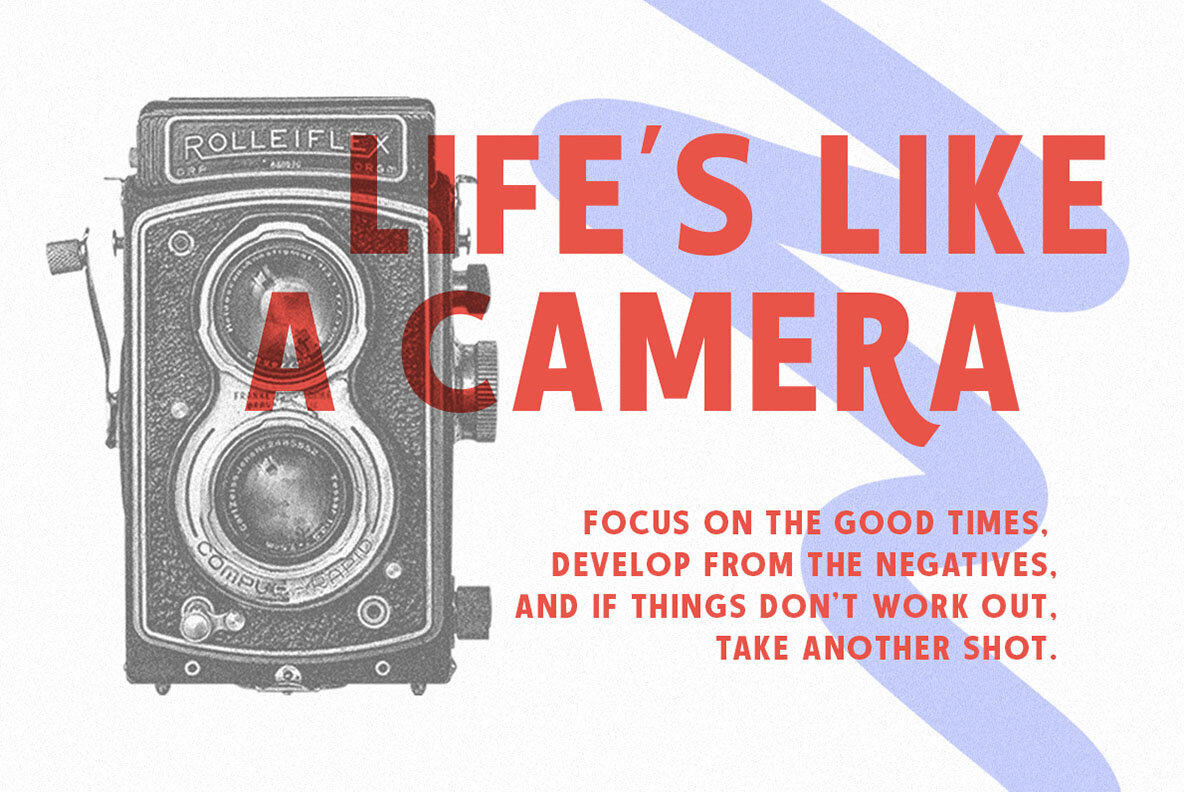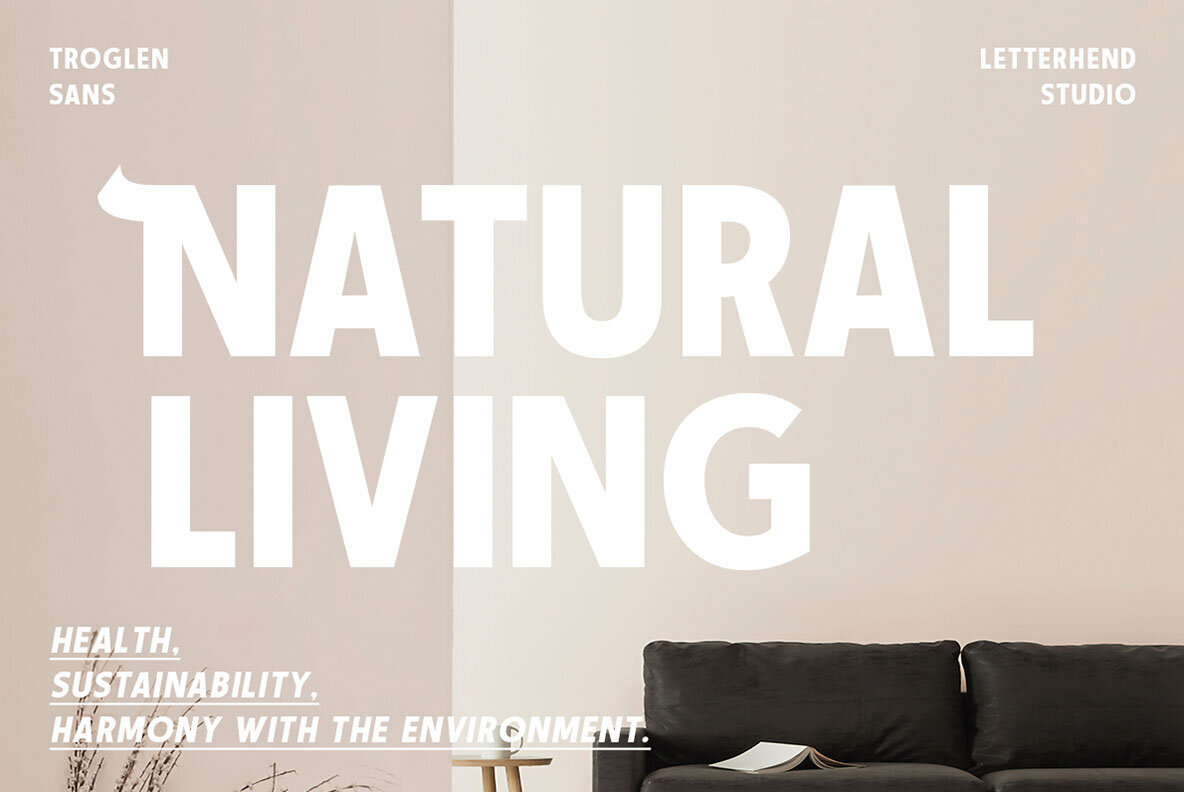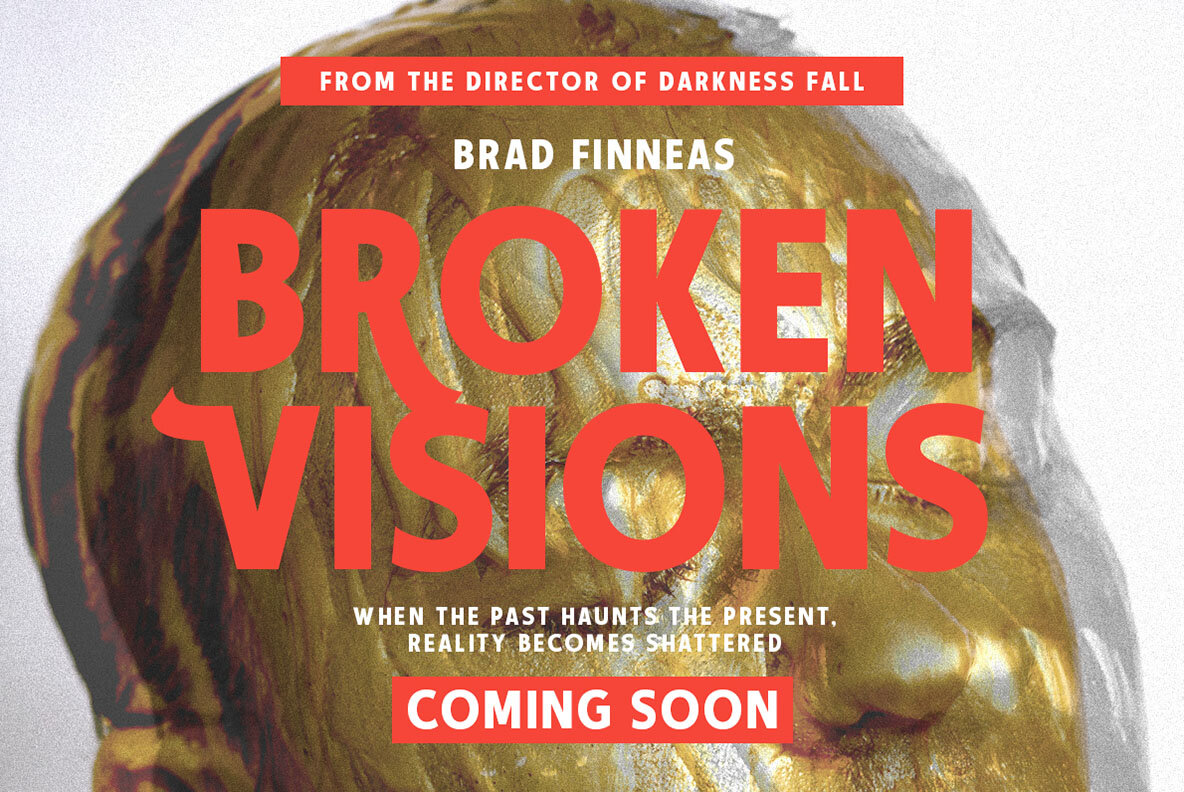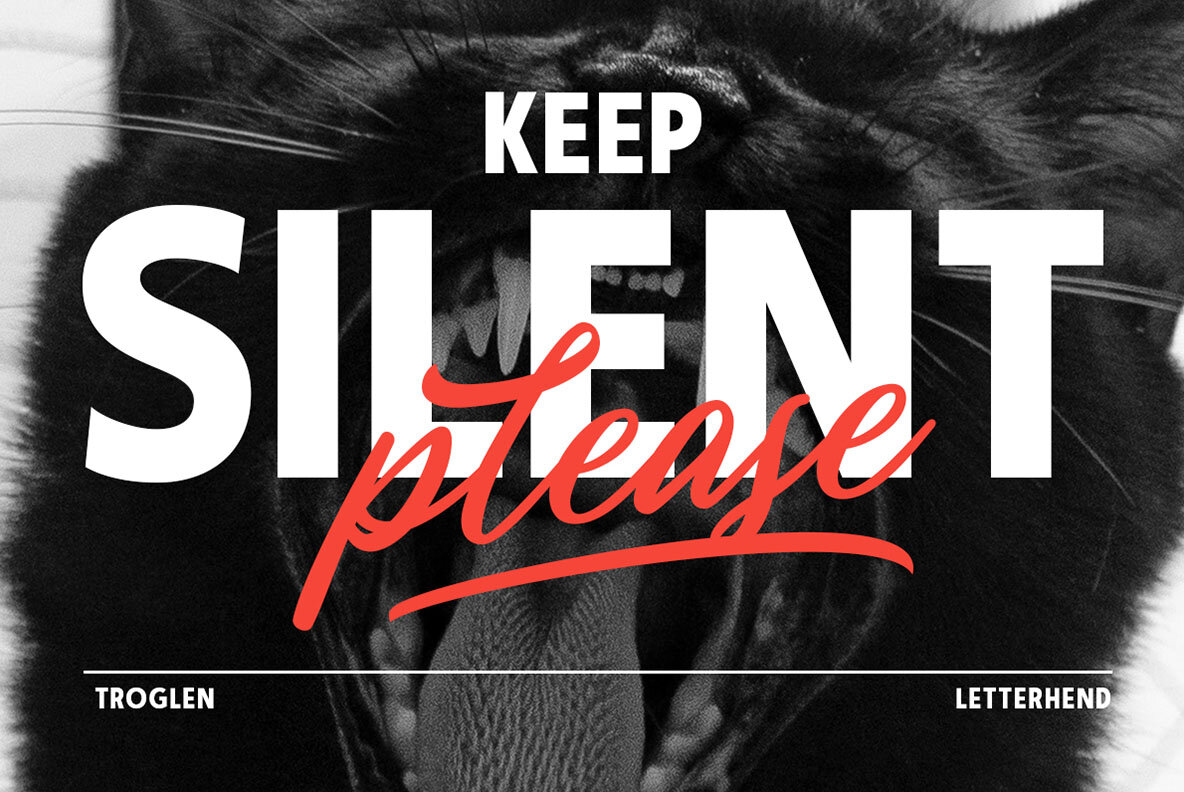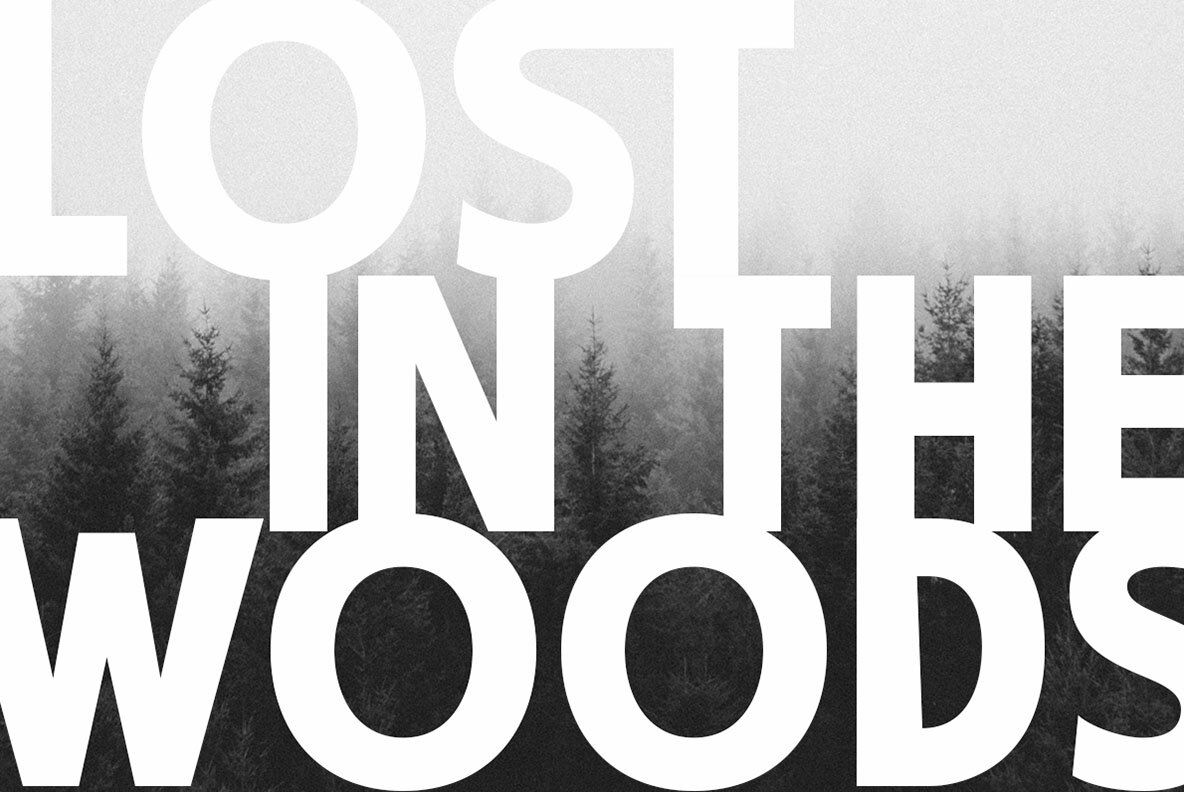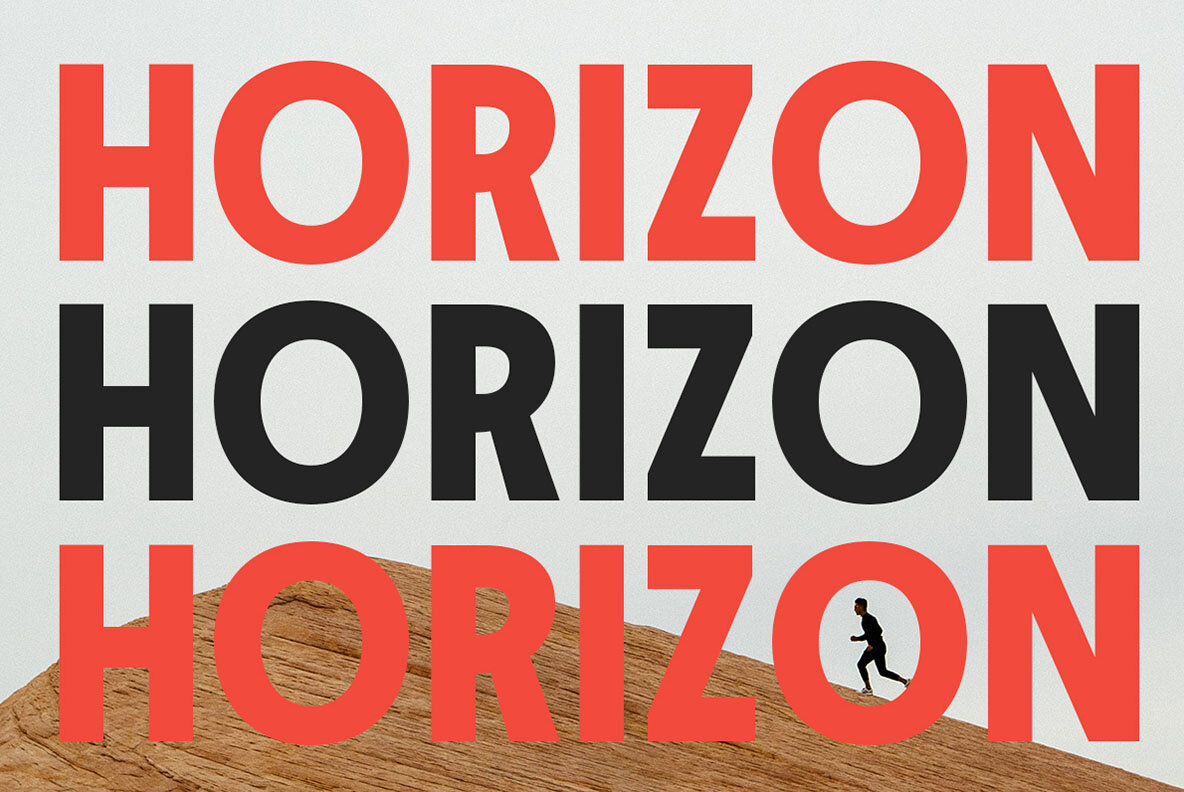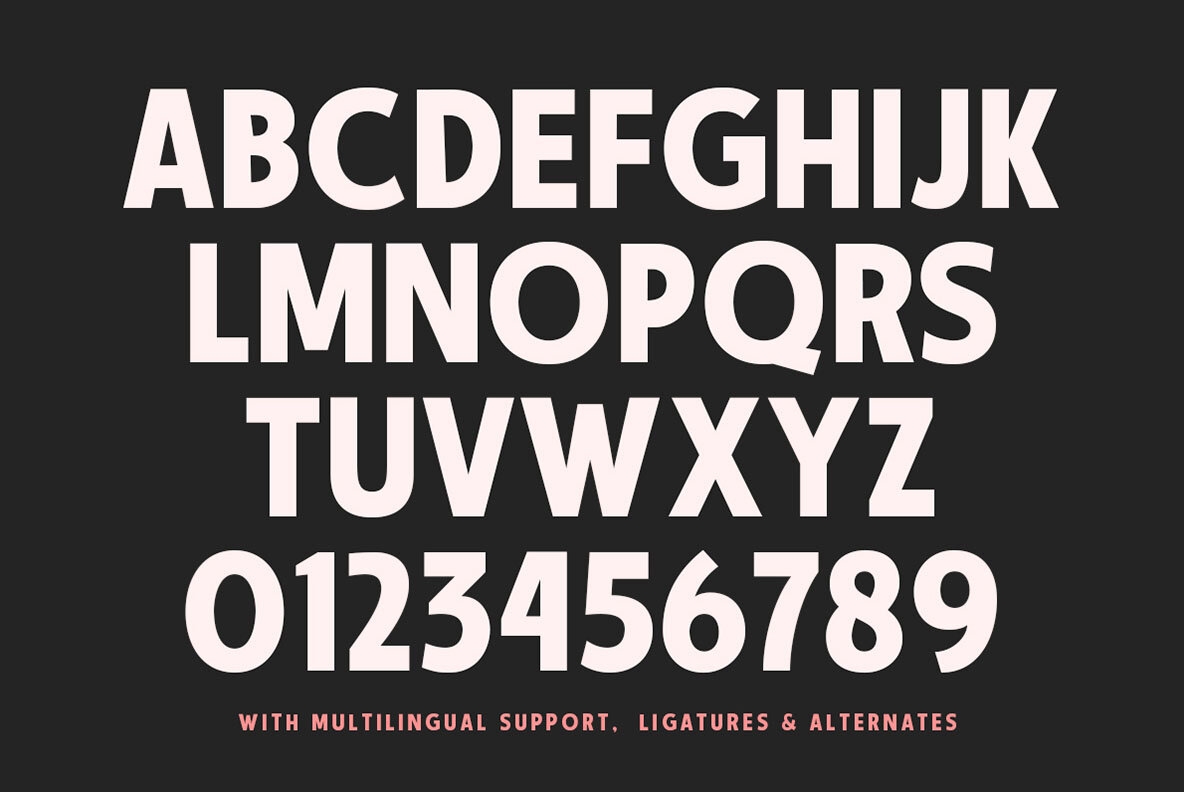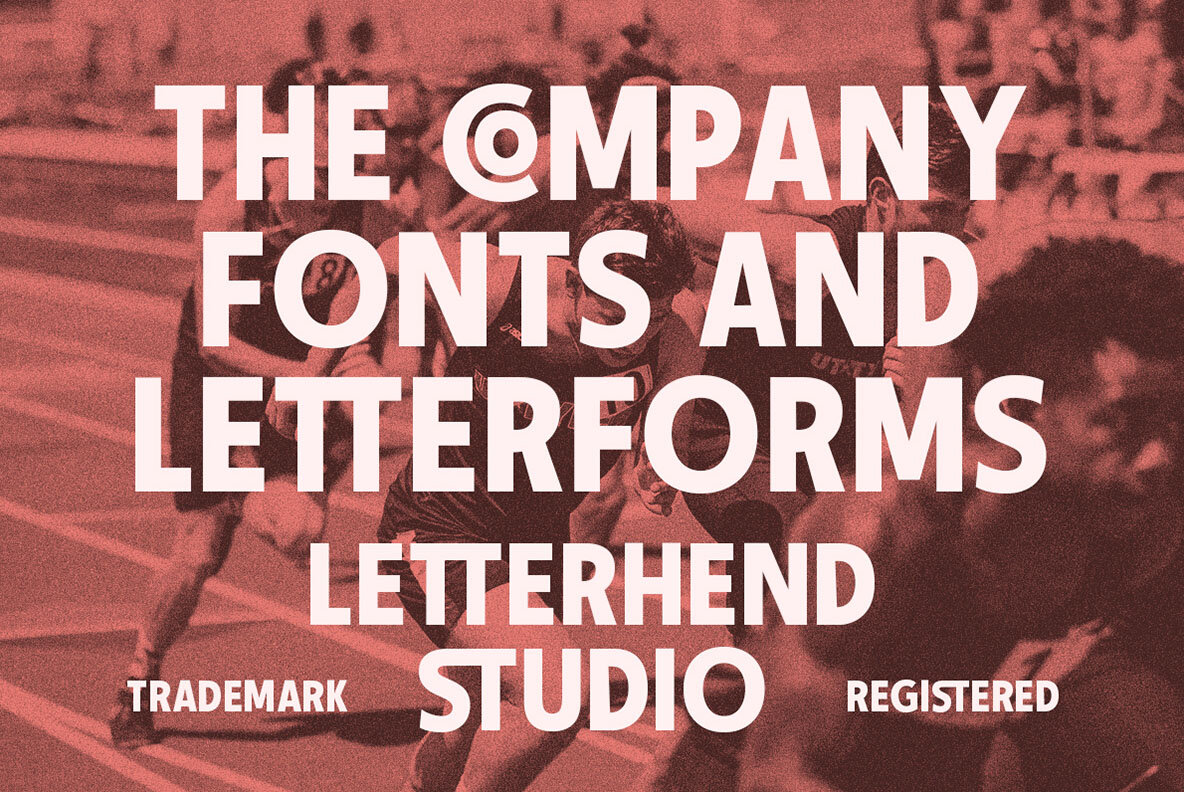
Troglen Font
Troglen Regular
Troglen Sans is a professional, bold sans-serif font that's perfect for grabbing attention. With a modern, casual feel and thick strokes, it's perfect for headlines and making a statement that's both bold and confident.This font perfectly made to be applied especially in logo, and the other various formal forms such as invitations, labels, logos, magazines, books, greeting / wedding cards, packaging, fashion, make up, stationery, novels, labels or any type of advertising purpose.
Features :
- Uppercase & lowercase
- Numbers and punctuation
- Alternates & Ligatures